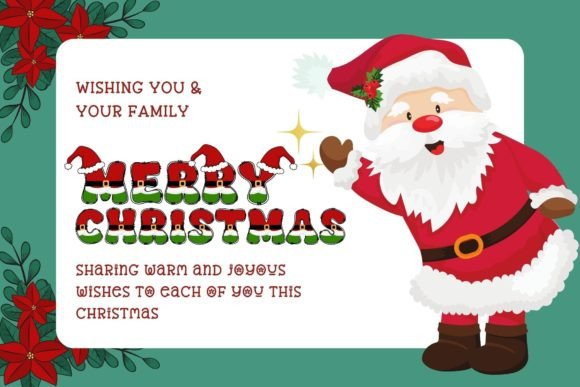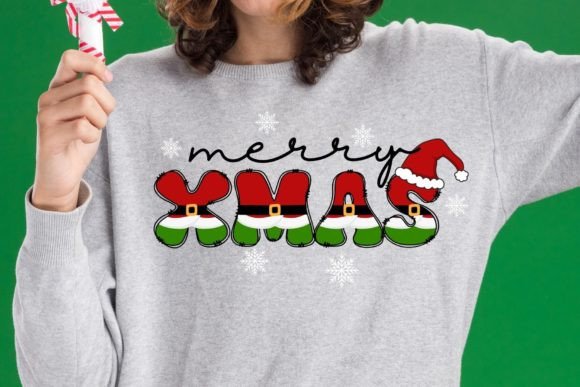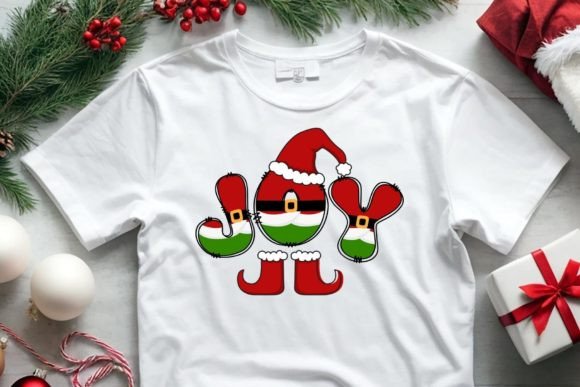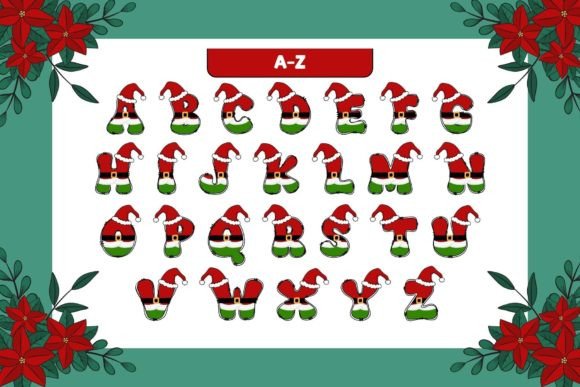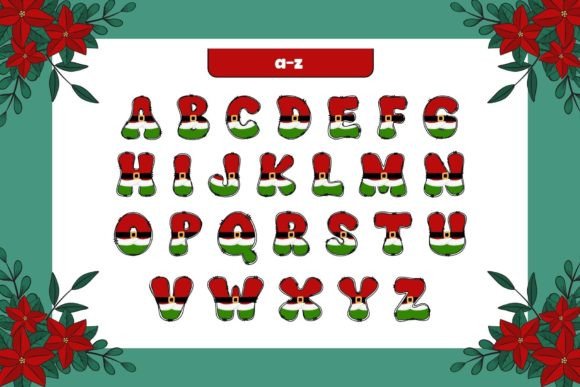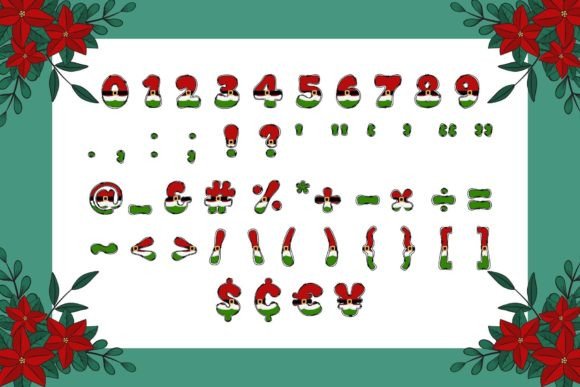
Elevate Your Holiday Designs with the Whimsical Charm of Fox Grinch Font
Are you looking for a unique and playful font to add a touch of holiday cheer to your designs? Look no further than the Fox Grinch Font! This delightful font is specially crafted to infuse your projects with the joyful spirit of Christmas, making it the perfect addition to your holiday-themed creations.
Whether you’re designing greeting cards, posters, banners, invitations, or any other type of project that needs a festive touch, the Fox Grinch Font is sure to impress. Its whimsical charm and playful vibe make it an ideal choice for designers and crafters who want to add a little extra magic to their work.
What Makes Fox Grinch Font So Special?
The Fox Grinch Font is more than just a regular font – it’s a special OpenType full-color (SVG) font that allows you to add a pop of color to your designs. With its intricate details and festive flair, this font is sure to make your projects stand out from the crowd.
Tips and Tricks for Using Fox Grinch Font
So, how can you get the most out of the Fox Grinch Font? Here are a few tips and tricks to keep in mind:
- Experiment with different colors: One of the best things about the Fox Grinch Font is its ability to add a pop of color to your designs. Don’t be afraid to experiment with different colors and combinations to find the perfect look for your project.
- Mix and match: The Fox Grinch Font is versatile enough to be used in a variety of design projects, from formal to informal. Try mixing and matching it with other fonts to create a unique look.
- Pay attention to detail: The Fox Grinch Font is full of intricate details and festive flair. Make sure to pay attention to these details and adjust your design accordingly to get the most out of the font.
In conclusion, the Fox Grinch Font is a unique and playful font that’s perfect for adding a touch of holiday cheer to your designs. With its whimsical charm, festive flair, and ease of use, it’s an ideal choice for designers and crafters who want to take their holiday projects to the next level.